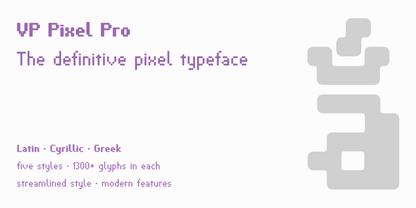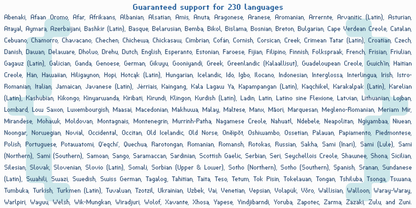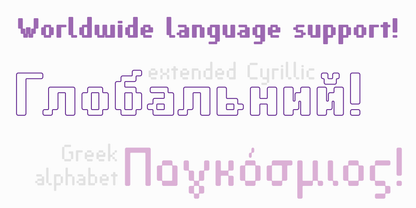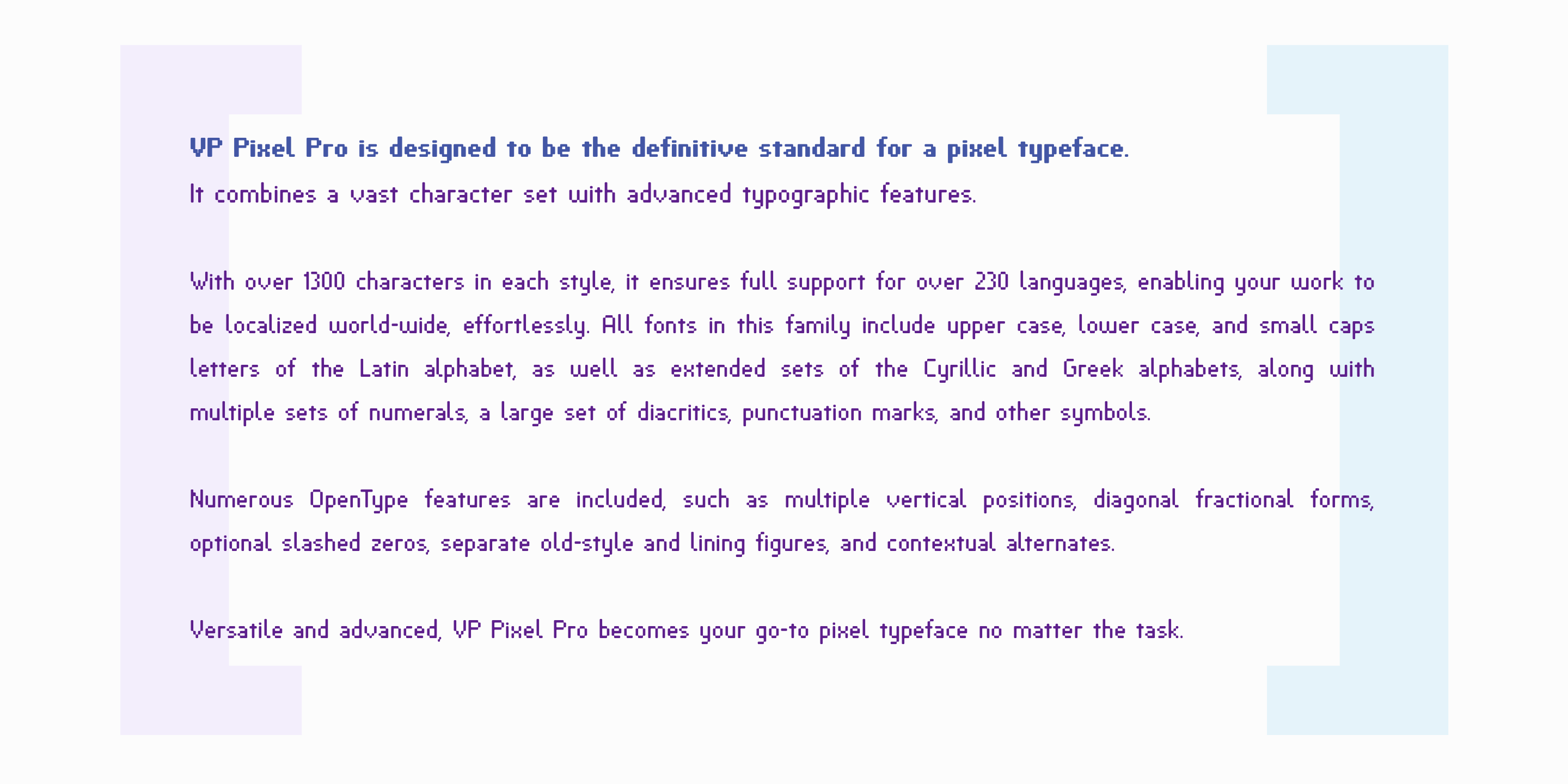
<b>VP Pixel Pro is designed to be the definitive standard for a pixel typeface.</b>
It combines a vast character set with advanced typographic features.
With over 1300 characters in each style, it ensures full support for over 230 languages, enabling your work to be localized world-wide, effortlessly. All fonts in this family include upper case, lower case, and small caps letters of the Latin alphabet, as well as extended sets of the Cyrillic and Greek alphabets, along with multiple sets of numerals, a large set of diacritics, punctuation marks, and other symbols.
Numerous OpenType features are included, such as multiple vertical positions, diagonal fractional forms, optional slashed zeros, separate old-style and lining figures, and contextual alternates.
Versatile and advanced, VP Pixel Pro becomes your go-to pixel typeface no matter the task.